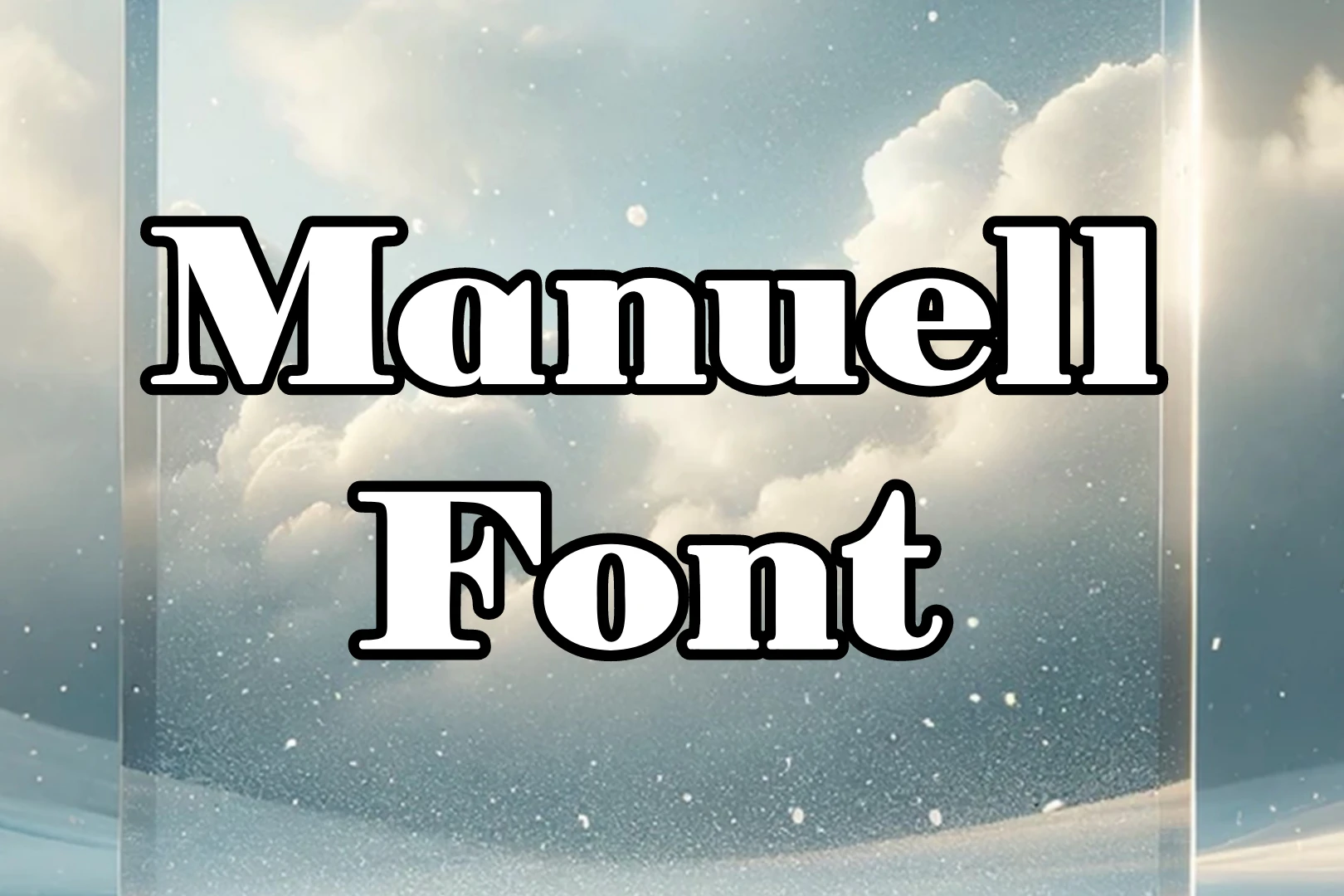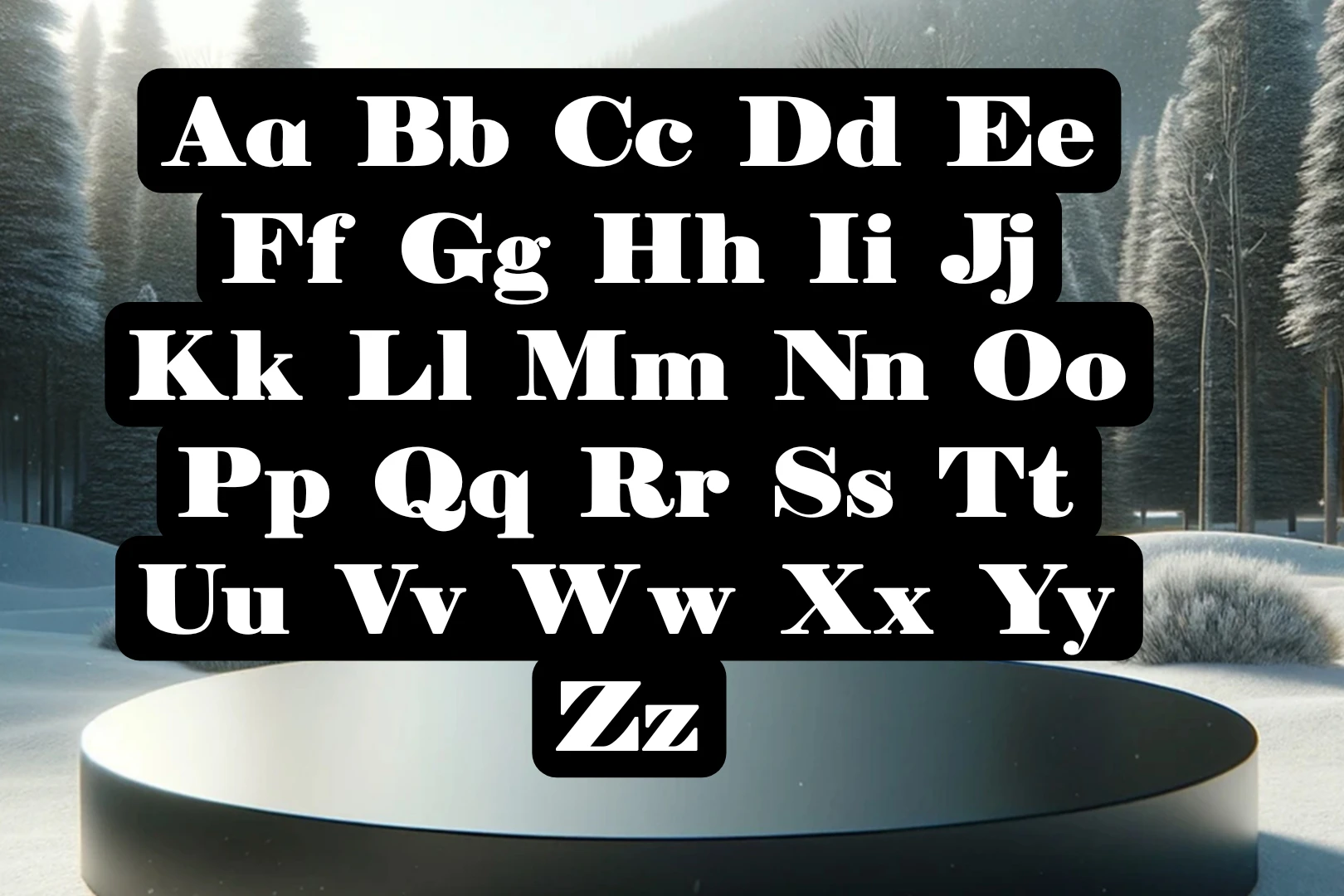
Manuell Font
Manuell Font Free Download is a trending keyword among designers who want a modern handwritten script style typeface. This font belongs to the serif and calligraphy category and is widely used for elegant branding, logos, and social media designs.
You can match this font with different textures like Berlin Email Serif Font to create a cool style for your projects. It’s made to make your work look nice and grab attention. It’s great for writing the main part of your project.
Uses of Manuell Font
StyleSerif